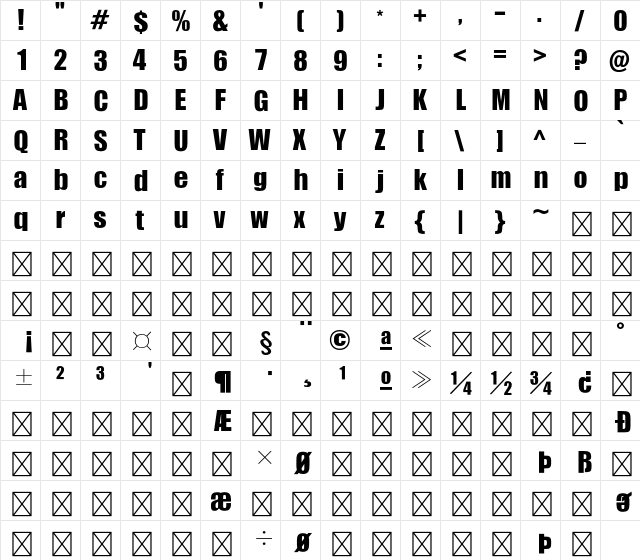
HY Kak Headline Std B Font Preview
HY Kak Headline Std B
Design Context for HY Kak Headline Std Typeface
HY Kak Headline Std is a composed and adaptable typeface that performs quietly and consistently across a wide range of design contexts.